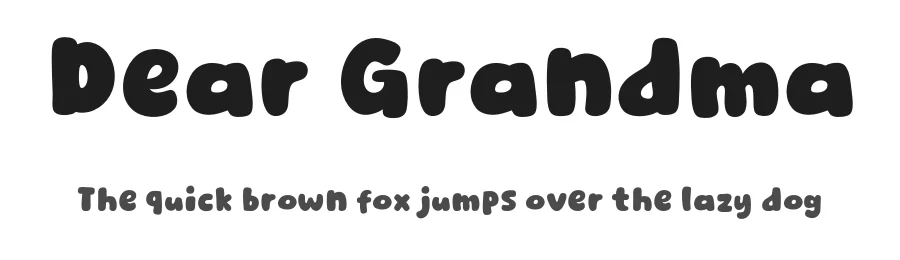
About Romantic Christmas Font
Romantic Christmas Specifications
| Font Family | Romantic Christmas |
| Full Name | Romantic Christmas |
| Glyph Count | 176 glyphs |
| PostScript Name | Romantic Christmas |
| Designer | BlackFridayFont |
Romantic Christmas supports 209 languages.
Romantic Christmas Font is a decorative font that shines as a display or heading face. Pair it with a clean sans-serif or serif font for body text — the contrast creates a clear hierarchy while the two styles stay balanced and easy to read.